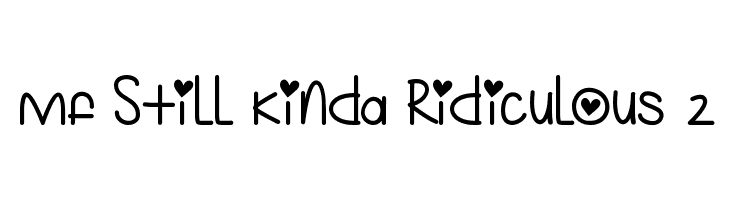
A playful handwritten font with tall, narrow characters and whimsical elements.
A playful, handwritten font with quirky, heart-themed elements.
A playful, handwritten font with thin, elongated characters and whimsical elements.